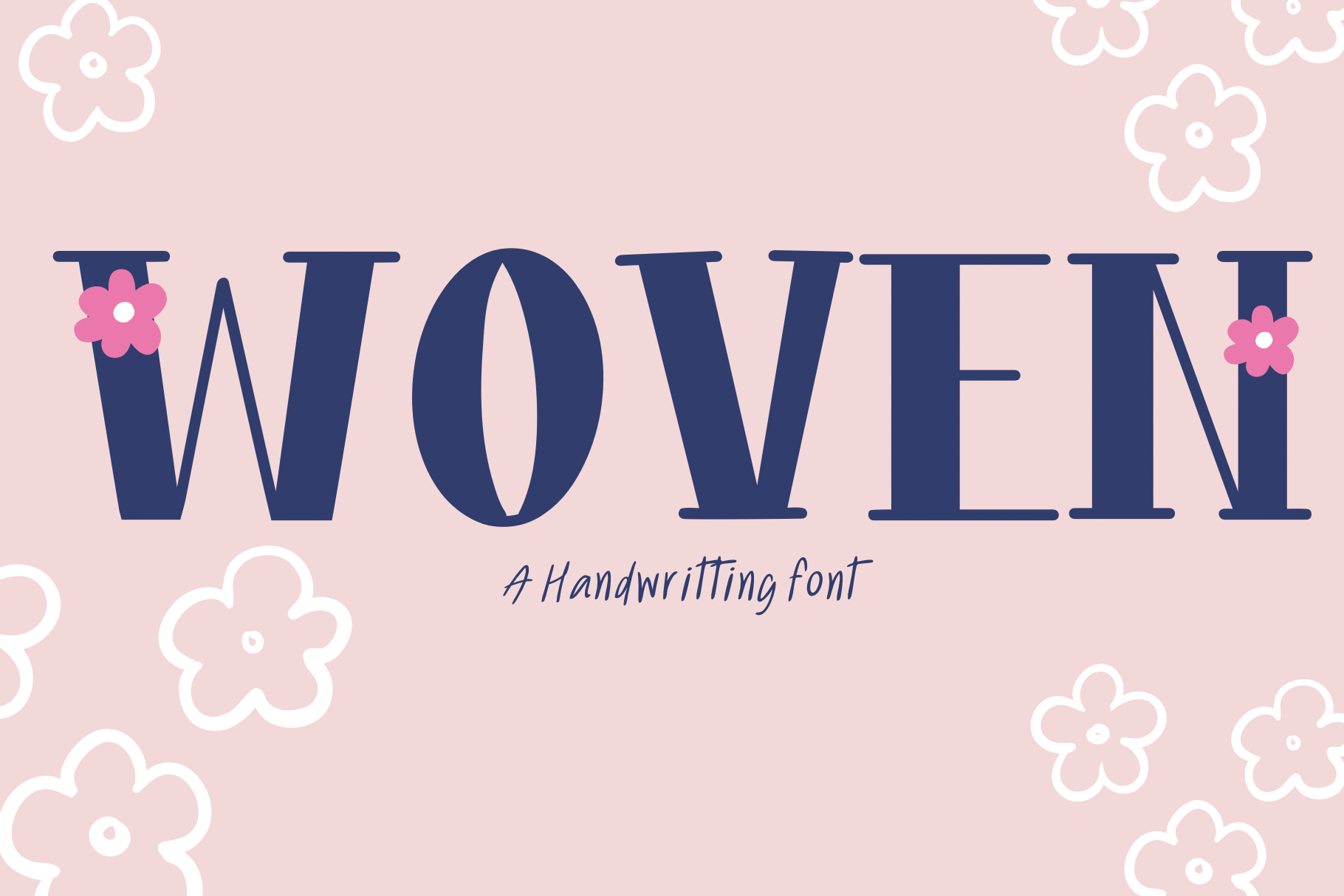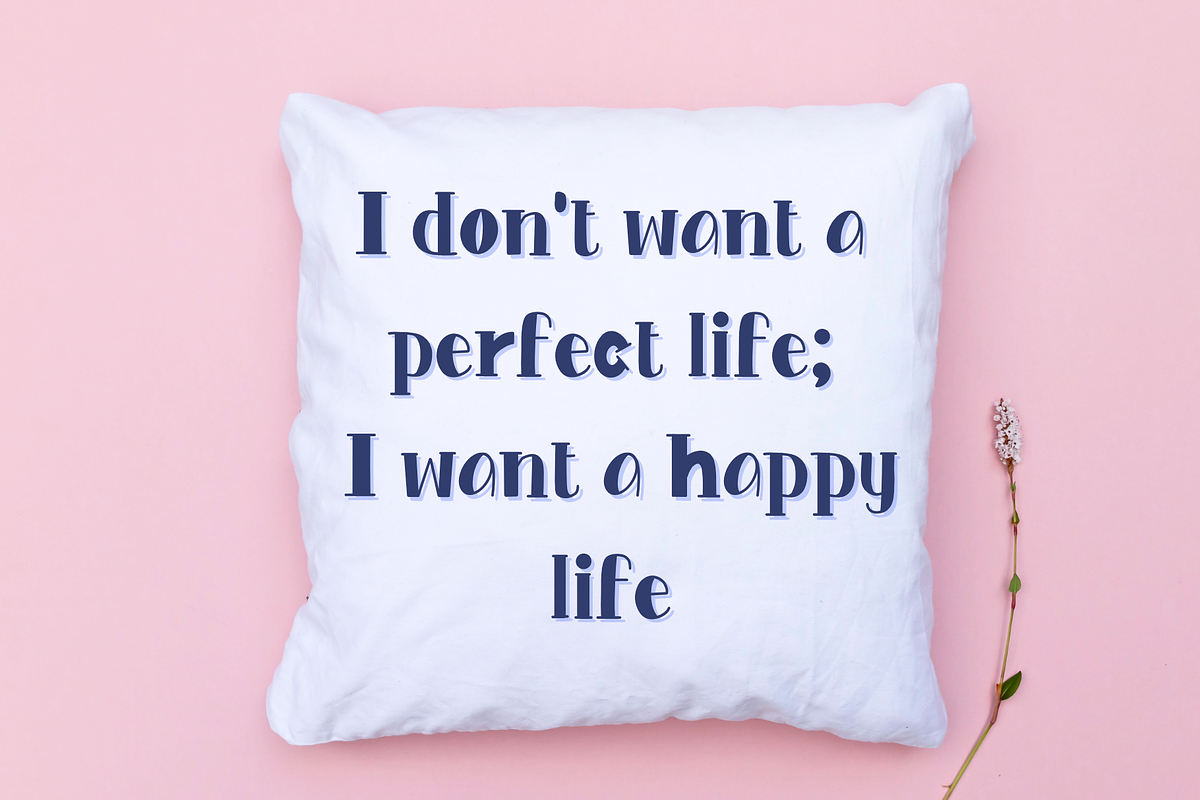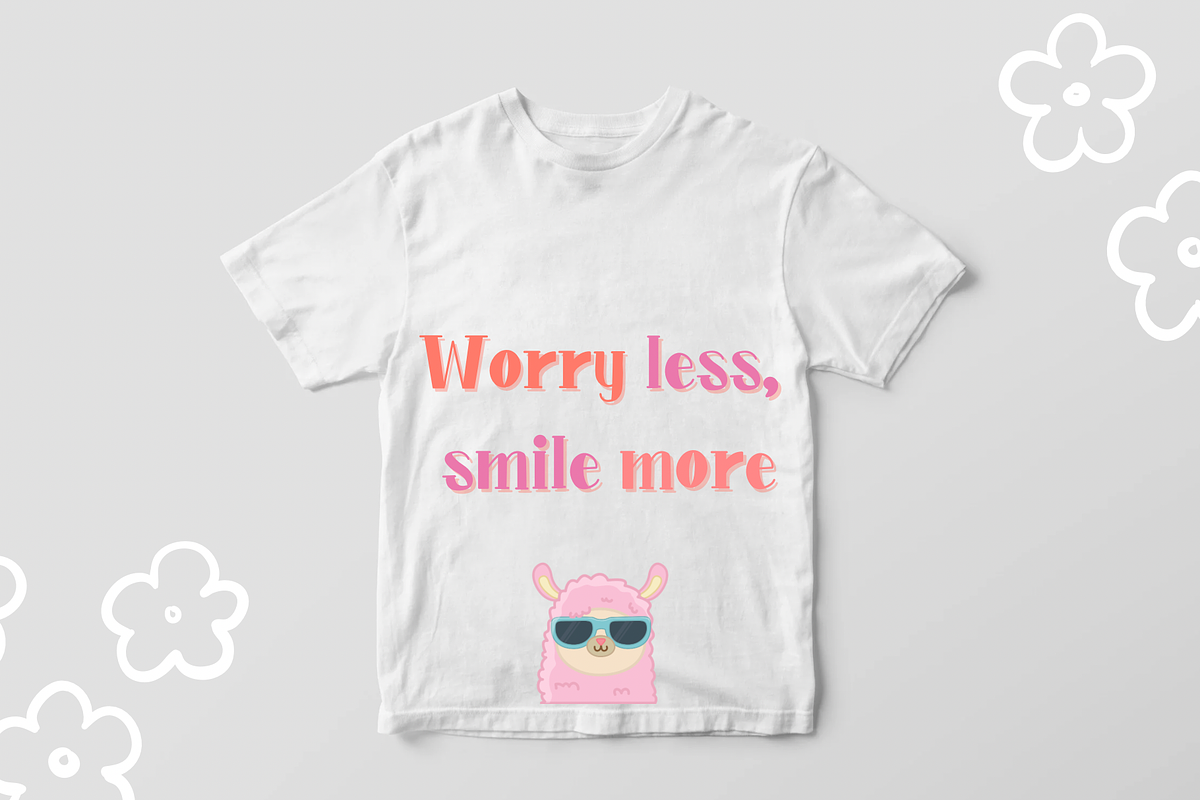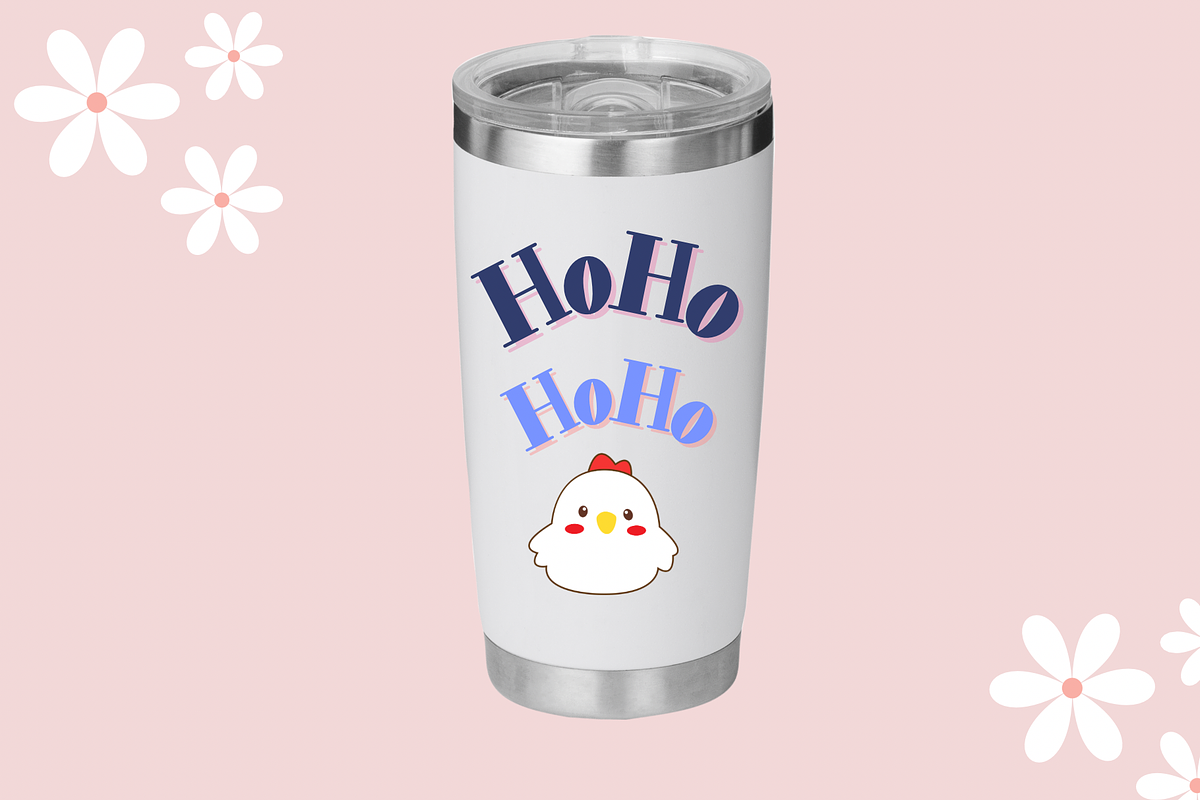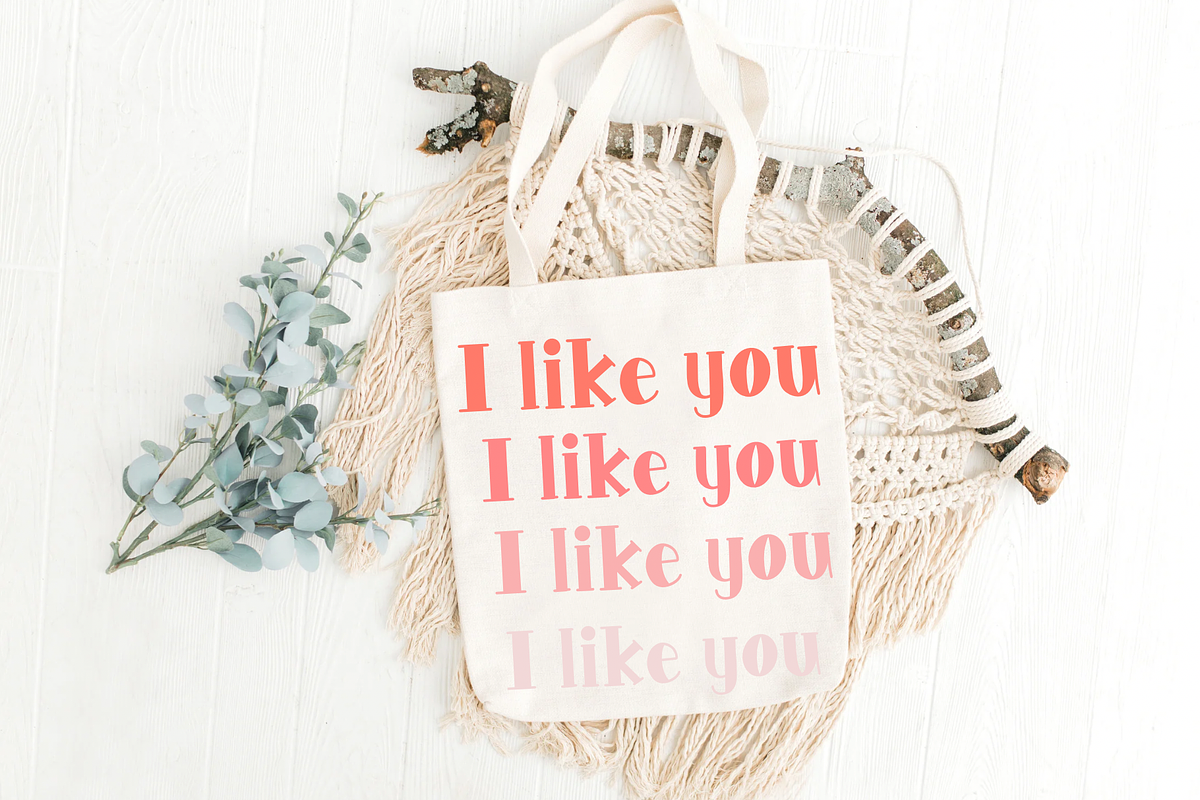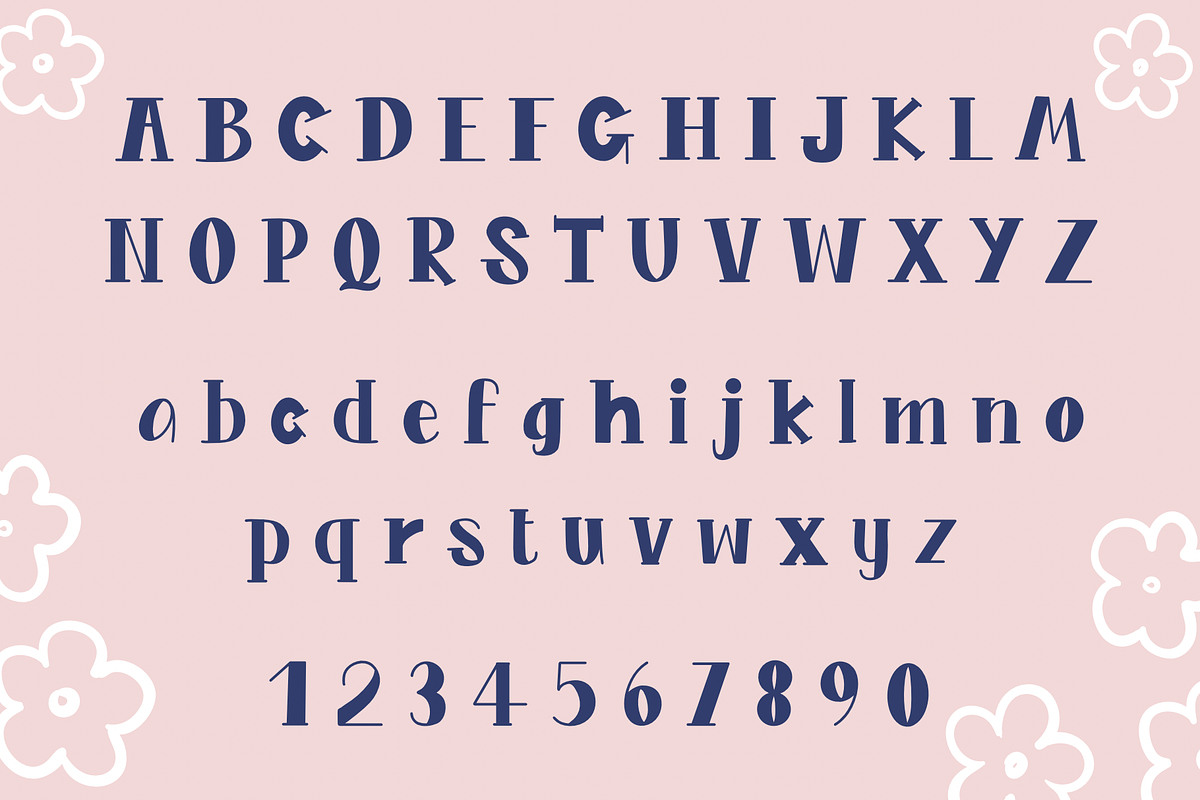
Woven font
Woven display handwriting font This decorative font is designed to evoke a classic and alluring feel, making your design work stand out. It can be adapted for various design projects, whether it's clothing, bags, books, and more, to showcase your unique personality. Enjoy the design process!